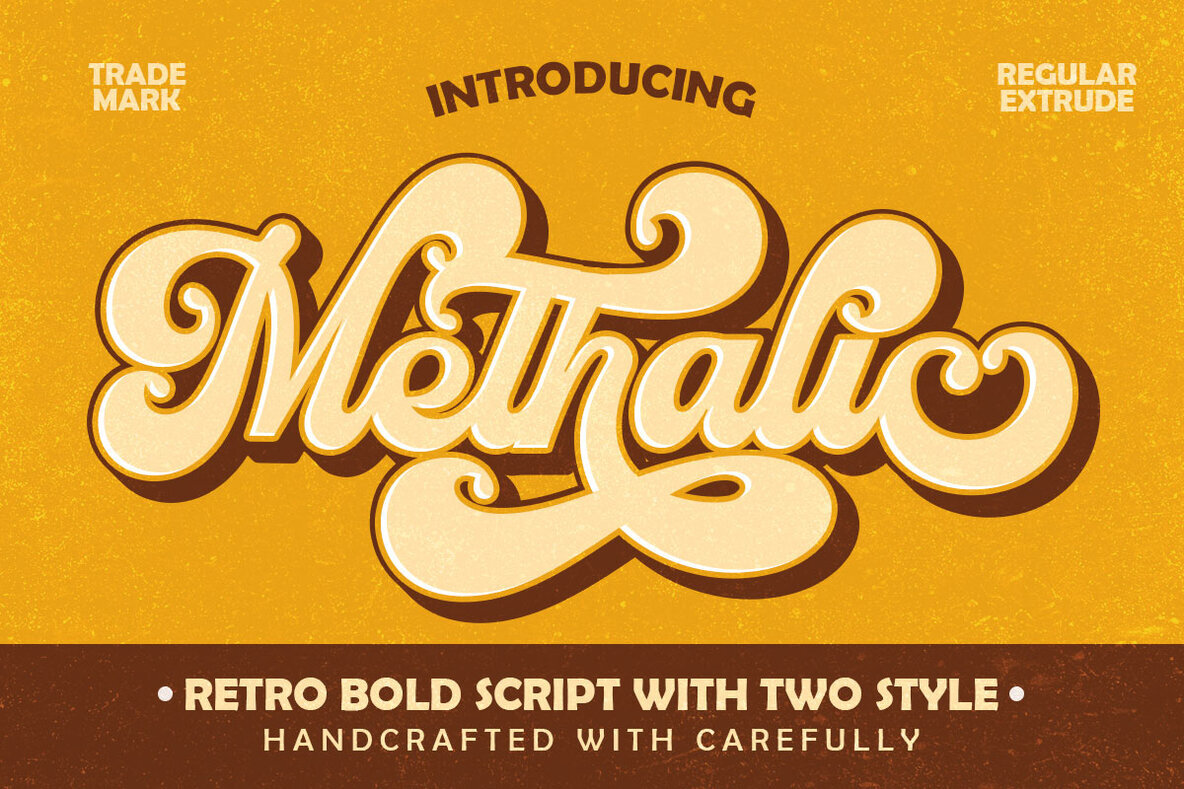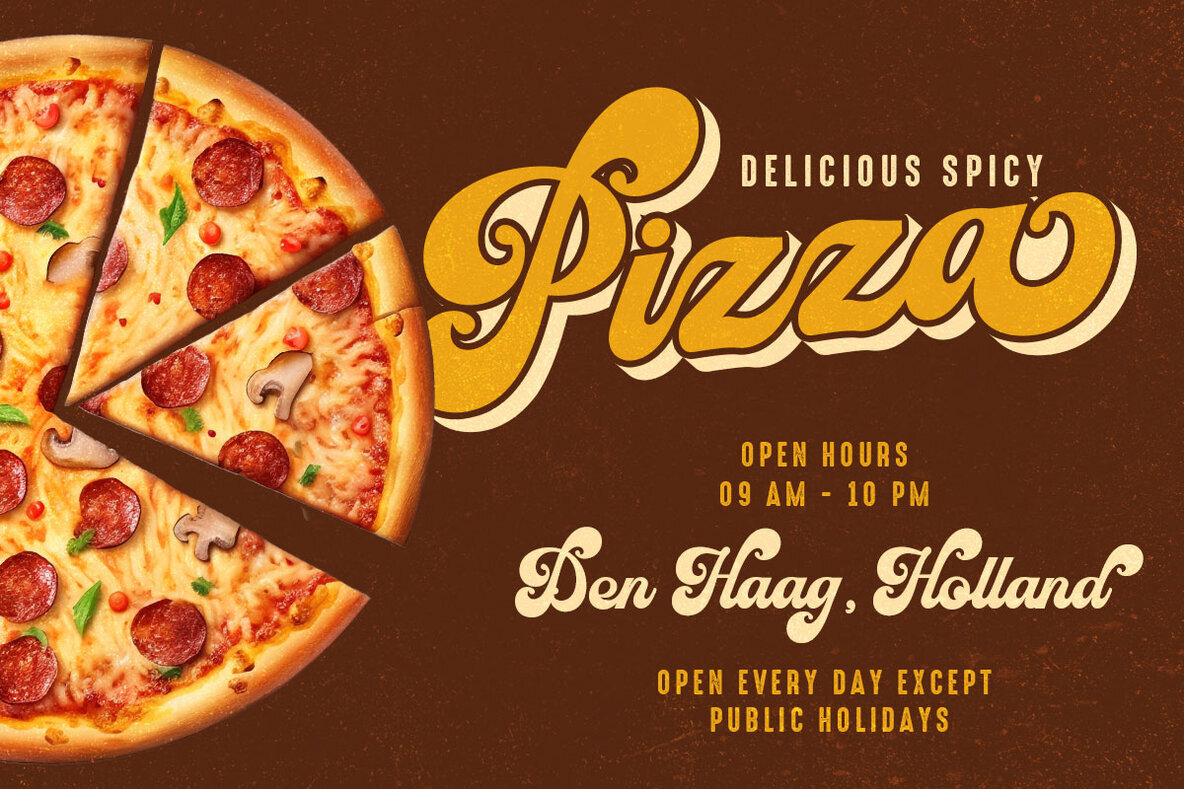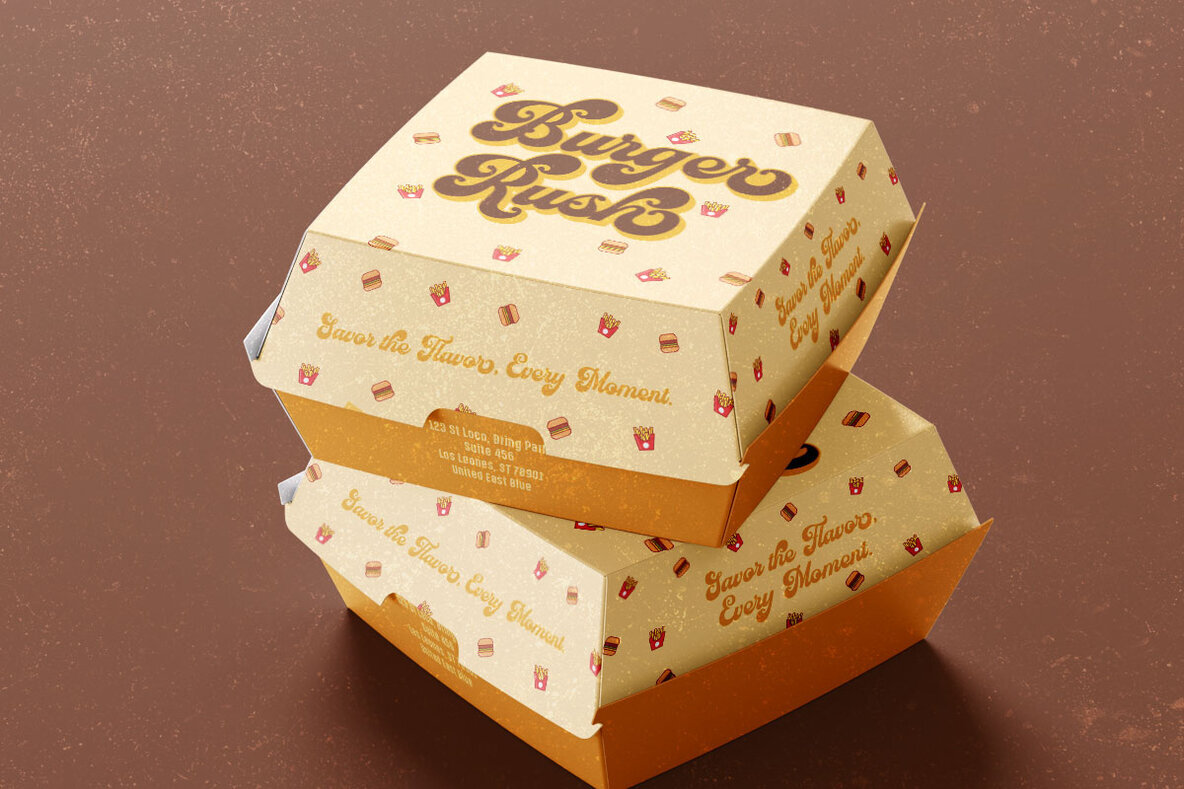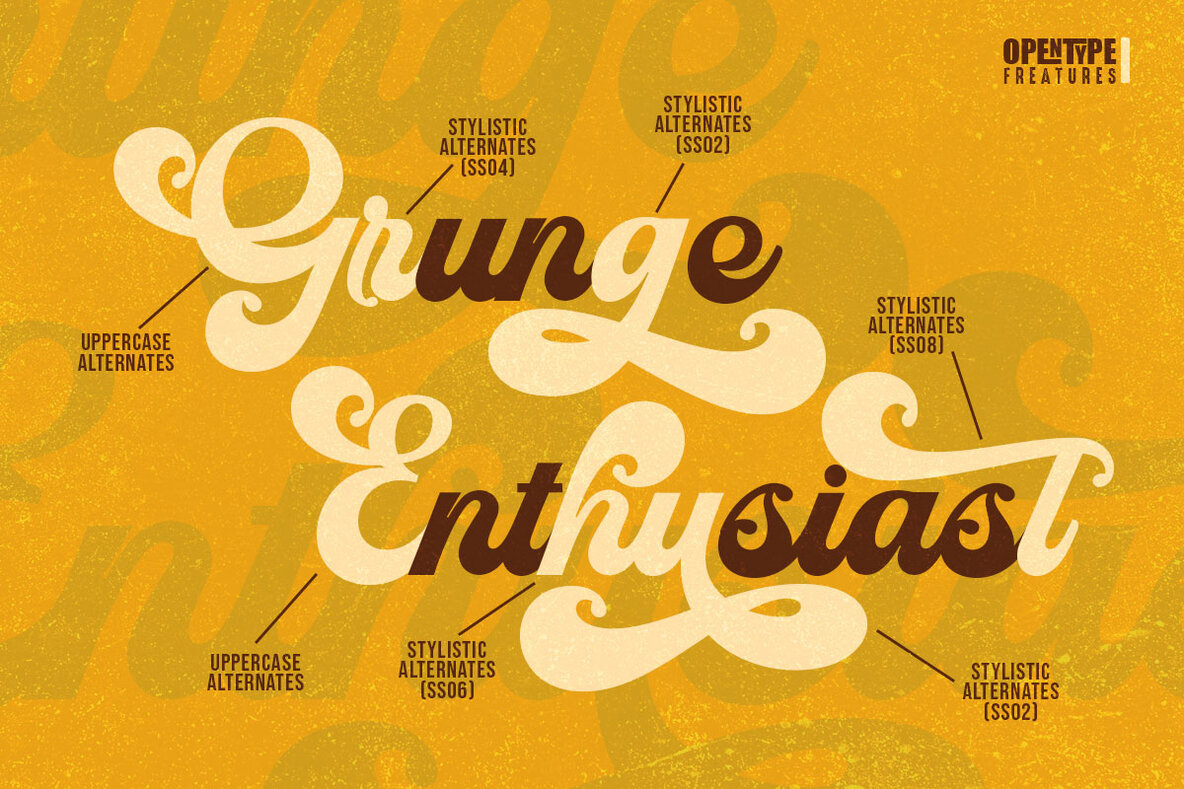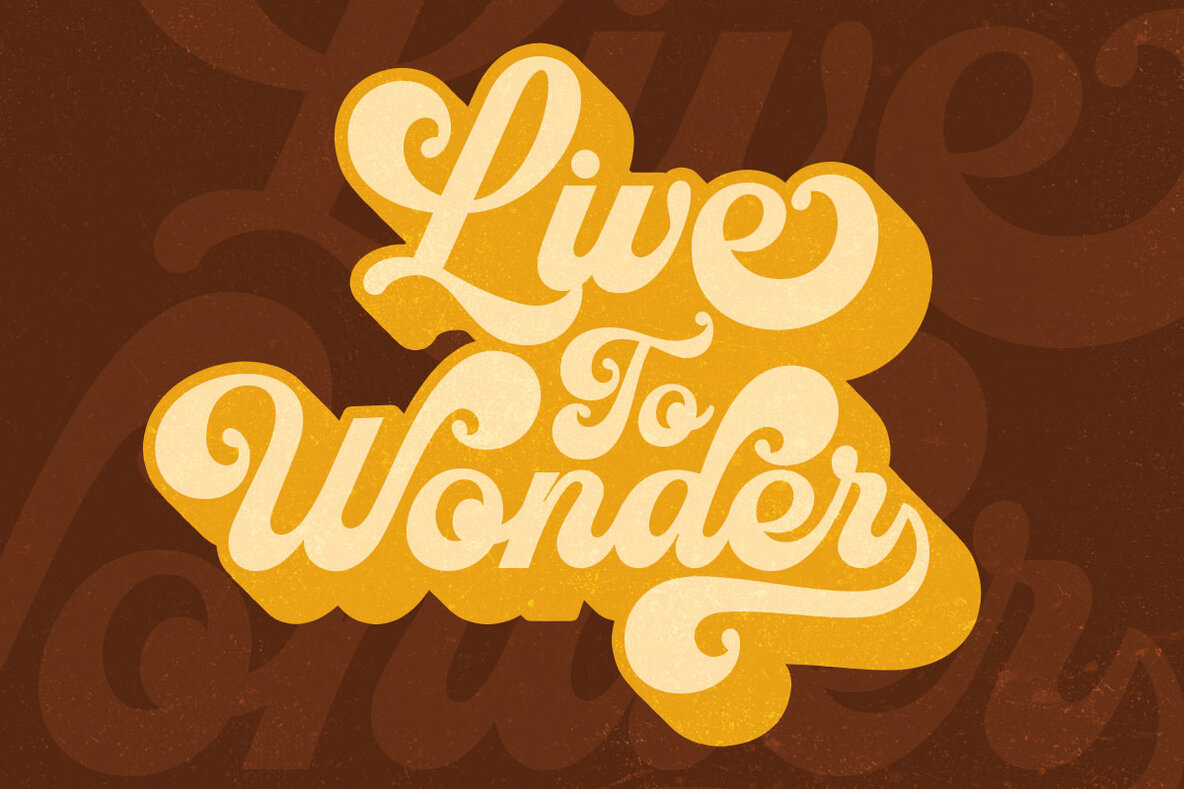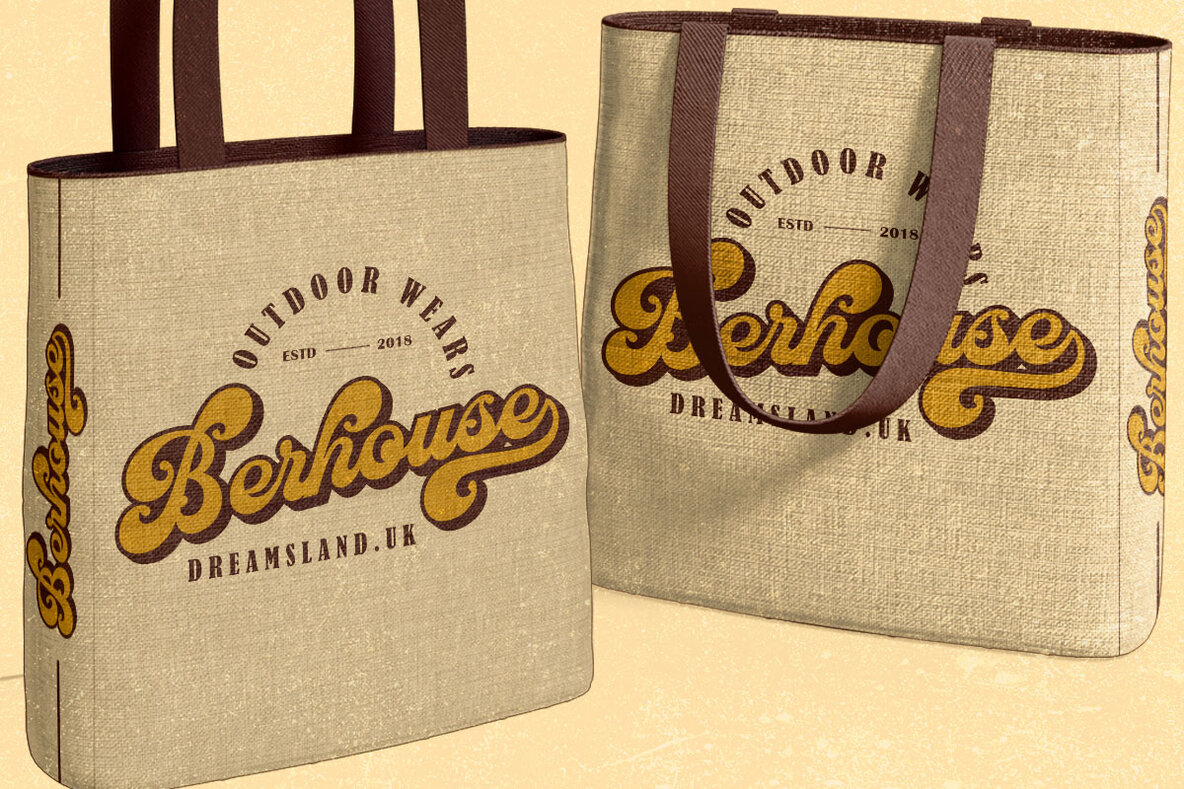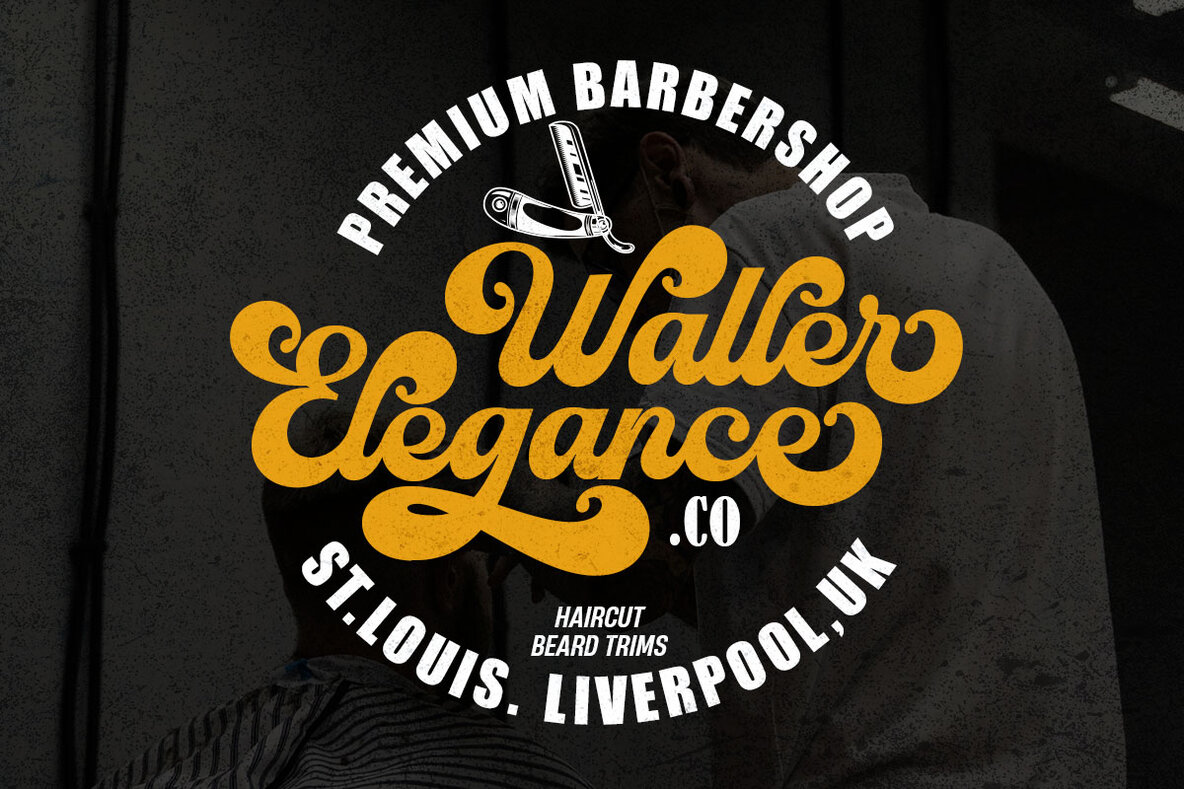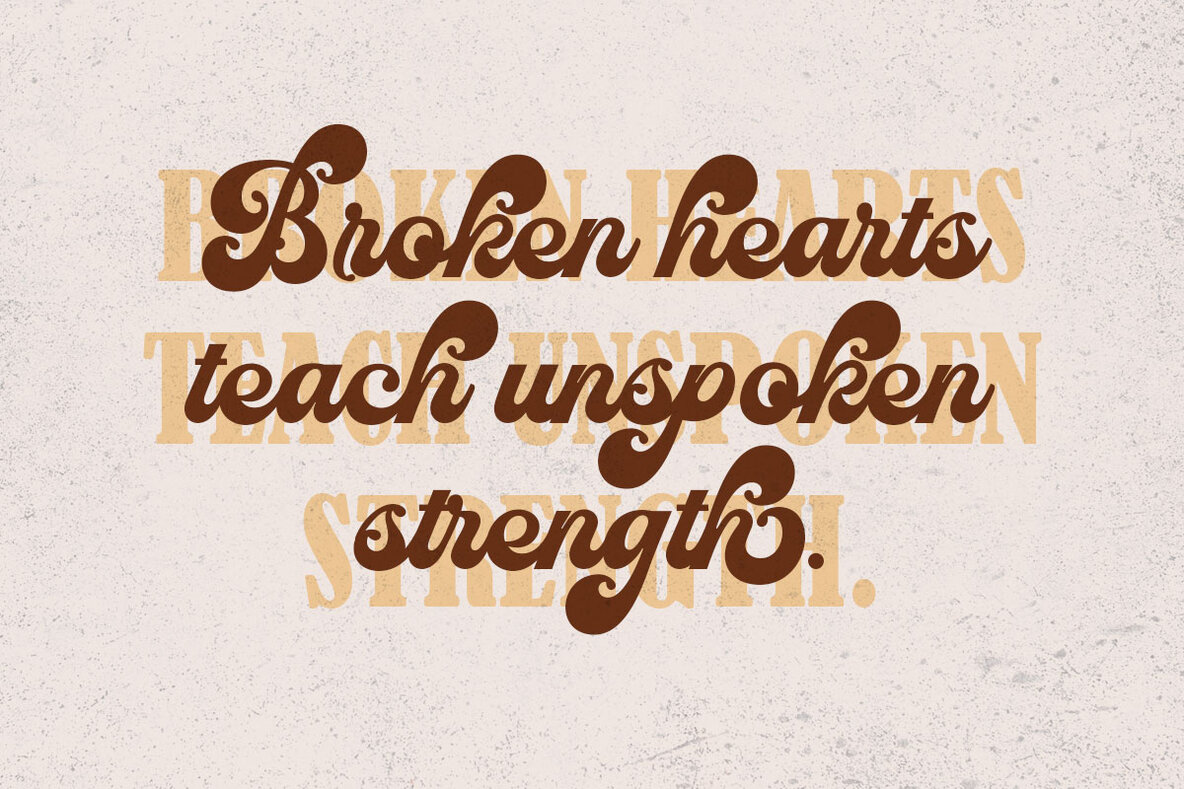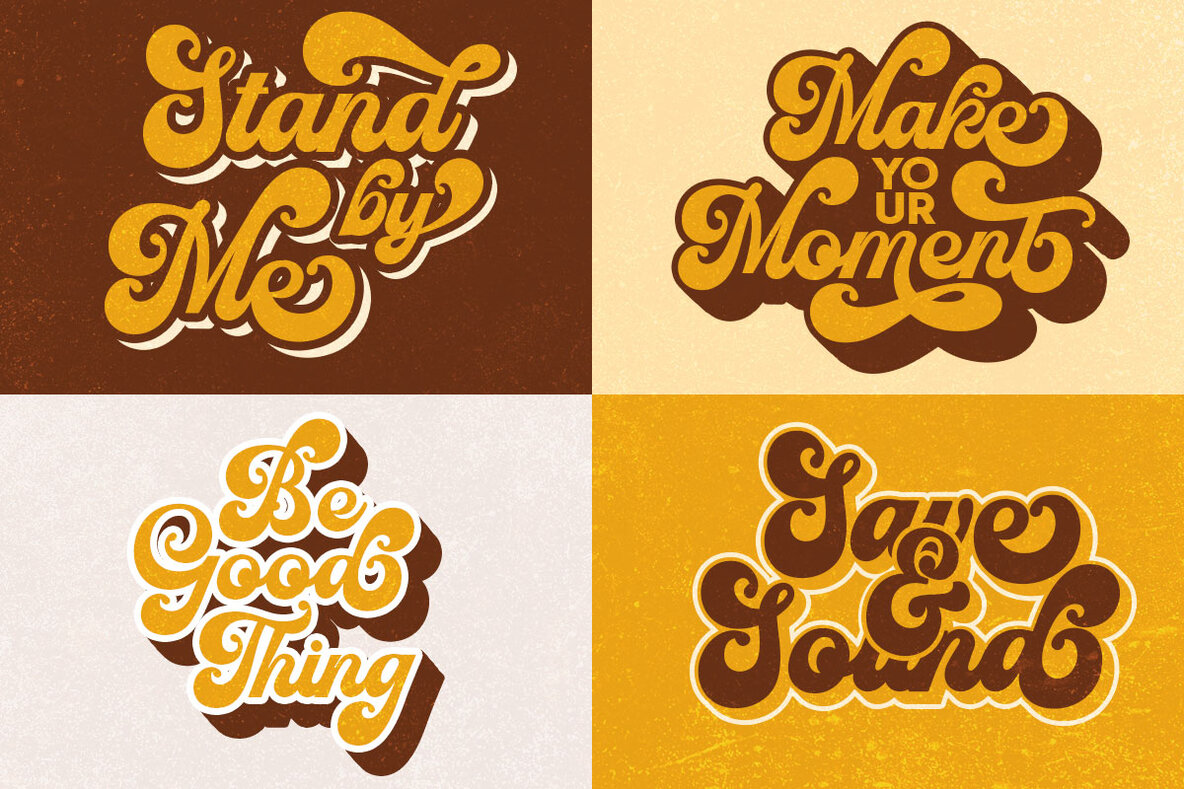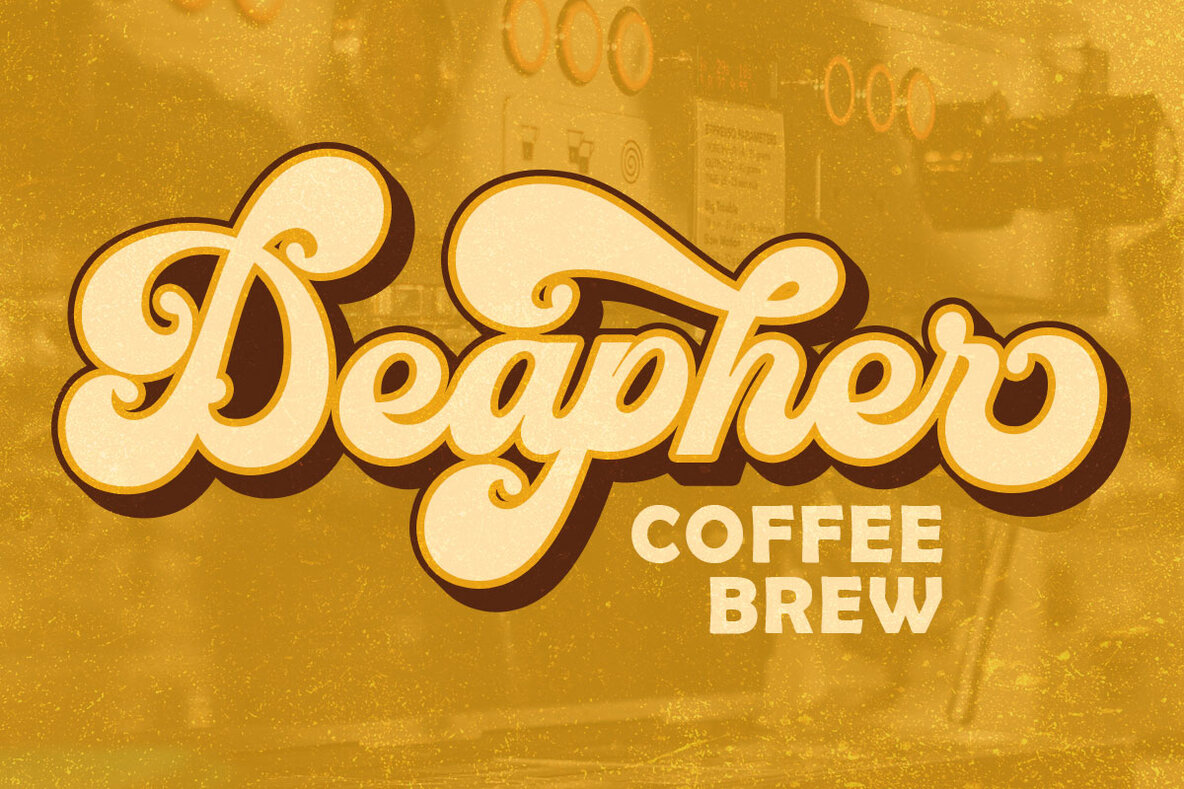
Methalic Script Font
Dive into the nostalgic world of the '60s and '70s with Methalic Script, a bold and groovy font that captures the essence of vintage design. Inspired by iconic typography, its funky curves and playful flow bring vibrant energy to any project. Whether you're crafting posters, logos, or album covers, this font injects a modern twist on retro style, adding personality with every stroke.Methalic Script: Bold Retro Typography